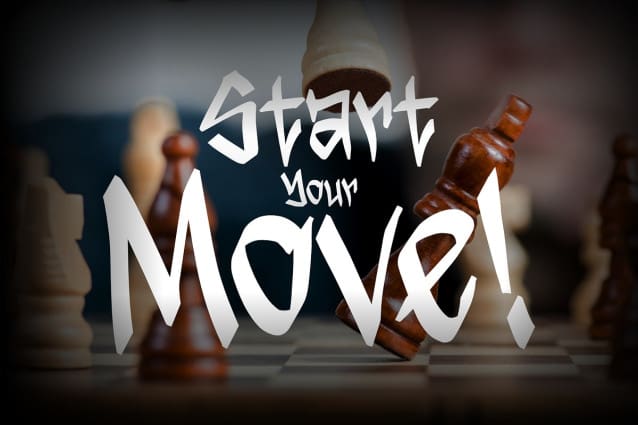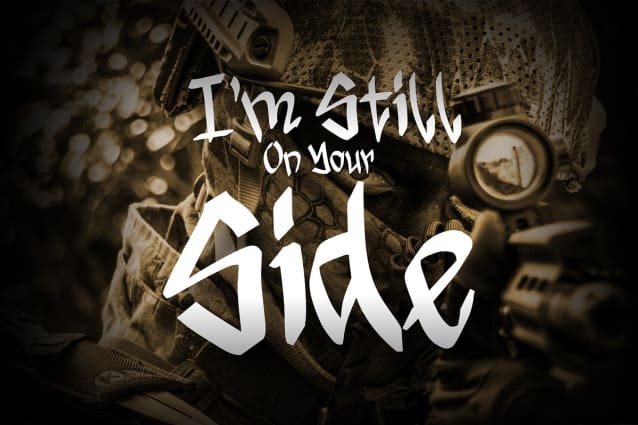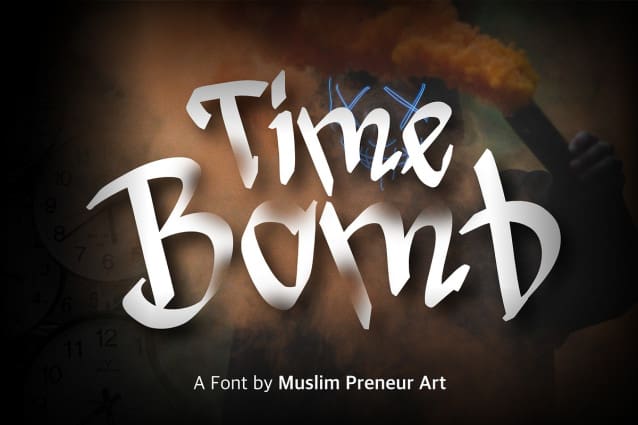
Time Bomb Graffiti Font
Time Bomb Graffiti Font is handstyle graffiti font by Muslim Preneur Art. Time Bomb Font is bold, readable, and tailored to your street art designs. Time Bomb Font adds dynamically to titles, logos, packaging, branding, and magazines. It adds impact to words above the background with precision: Time Bomb Font – the perfect font for making a statement.